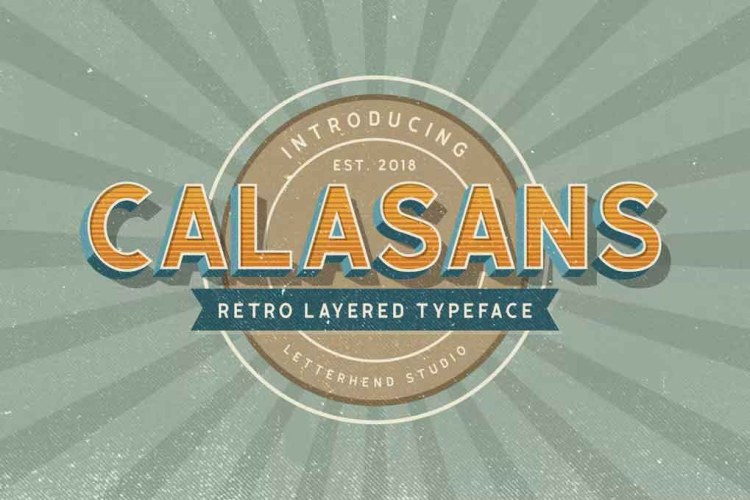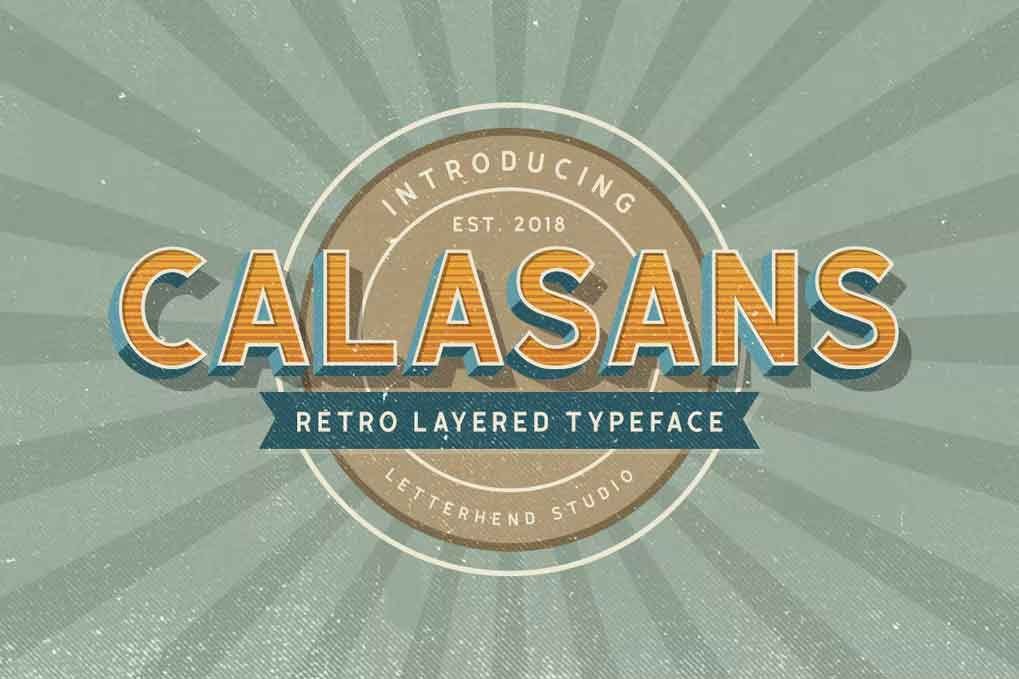
Calasans 7 layered Font
Introducing, Our new brand layered font, Calasans! Calasans is a sans serif font with 7 layered style. You can create 3D look without using any addons, only with fonts!…
Introducing, Our new brand layered font, Calasans!
Calasans is a sans serif font with 7 layered style. You can create 3D look without using any addons, only with fonts! This font is suitable for a vintage poster, 3d type, or retro Including number and punctuations, also support multi language. Create your own 3D type now!
Where Calasans 7 layered Font works best